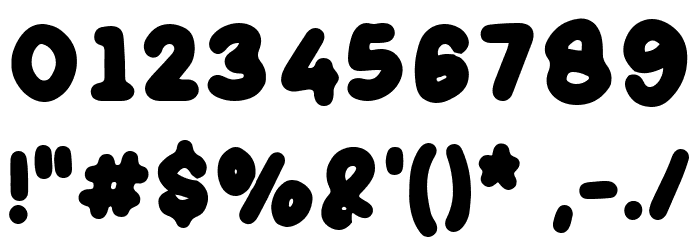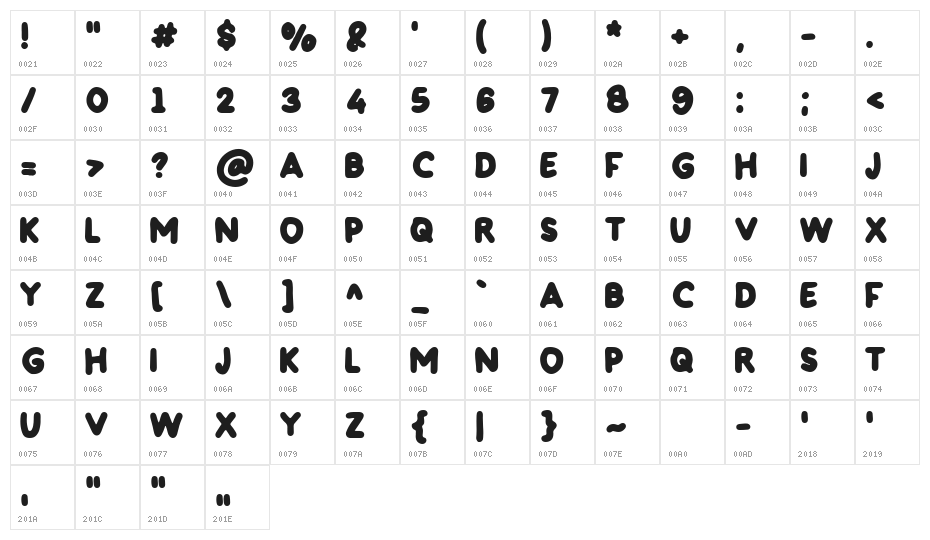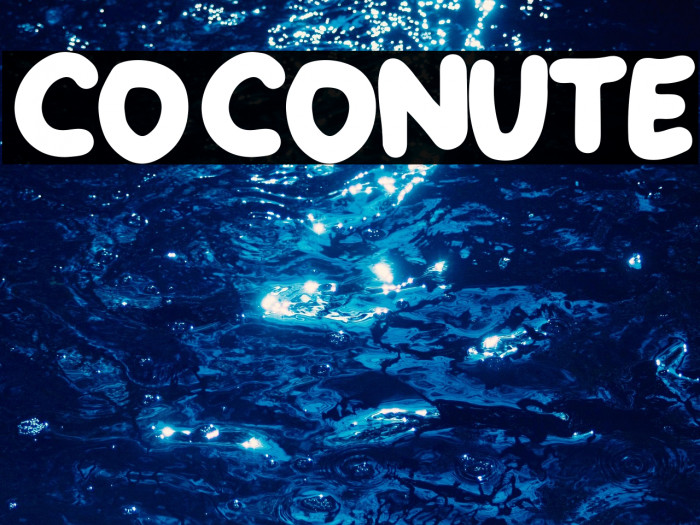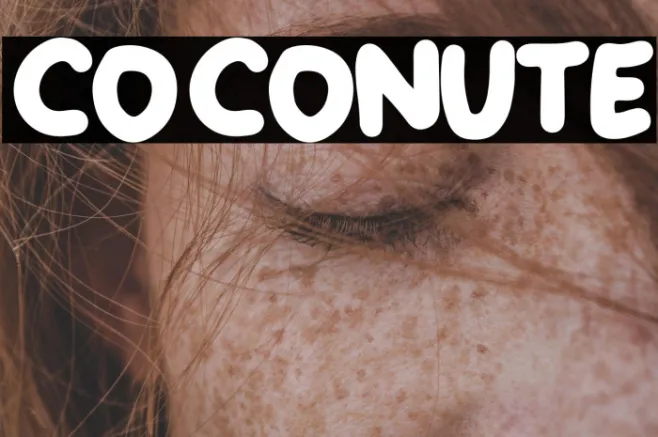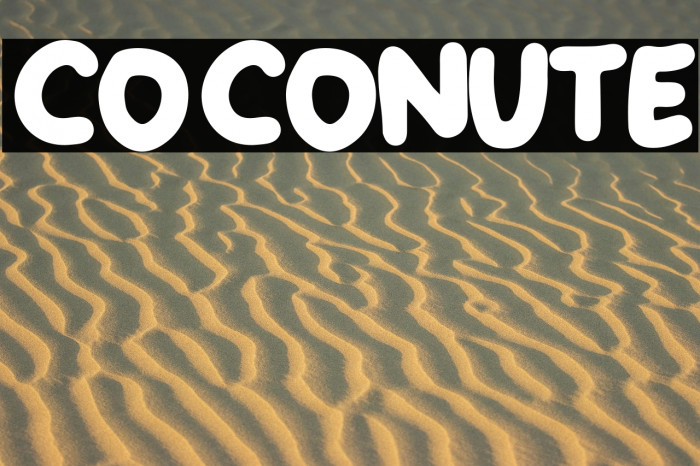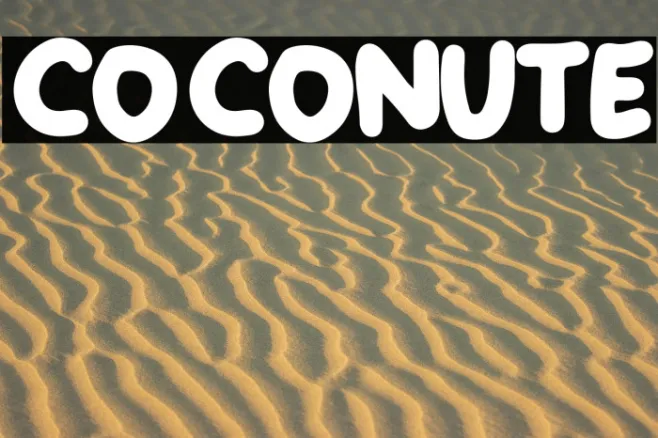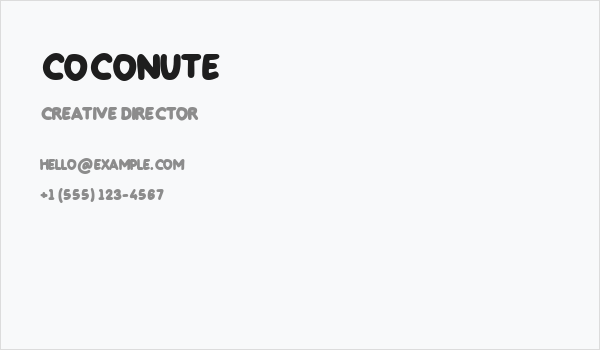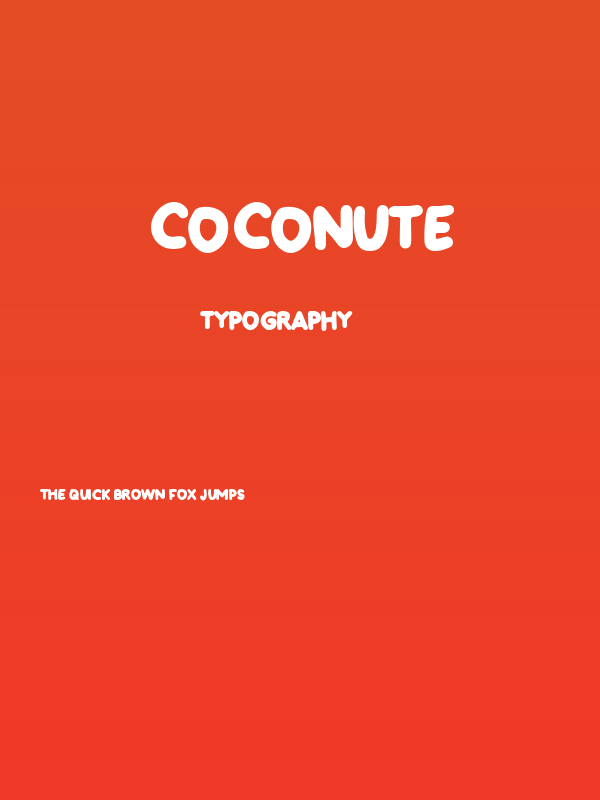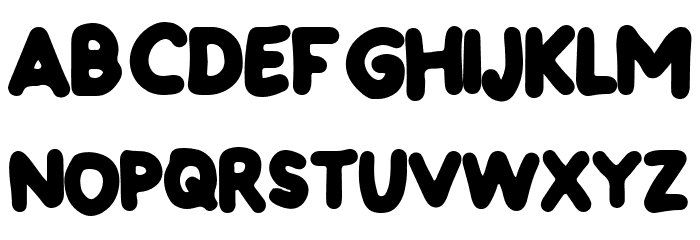
Coconute Font
Coconute Description
This playful and bold font features thick, rounded characters that convey a sense of fun and approachability. The letters are uniformly bold, with a consistent stroke width that gives the font a cohesive and solid appearance. The rounded edges and lack of sharp angles contribute to a friendly and informal style, making it ideal for casual or whimsical designs. The font maintains a consistent weight across all characters, ensuring readability while adding a touch of personality. Its boldness makes it stand out, suitable for eye-catching headlines or titles.
| Proposed Projects | Ideal for children's books, playful branding, party invitations, or any project needing a fun and approachable typeface. |